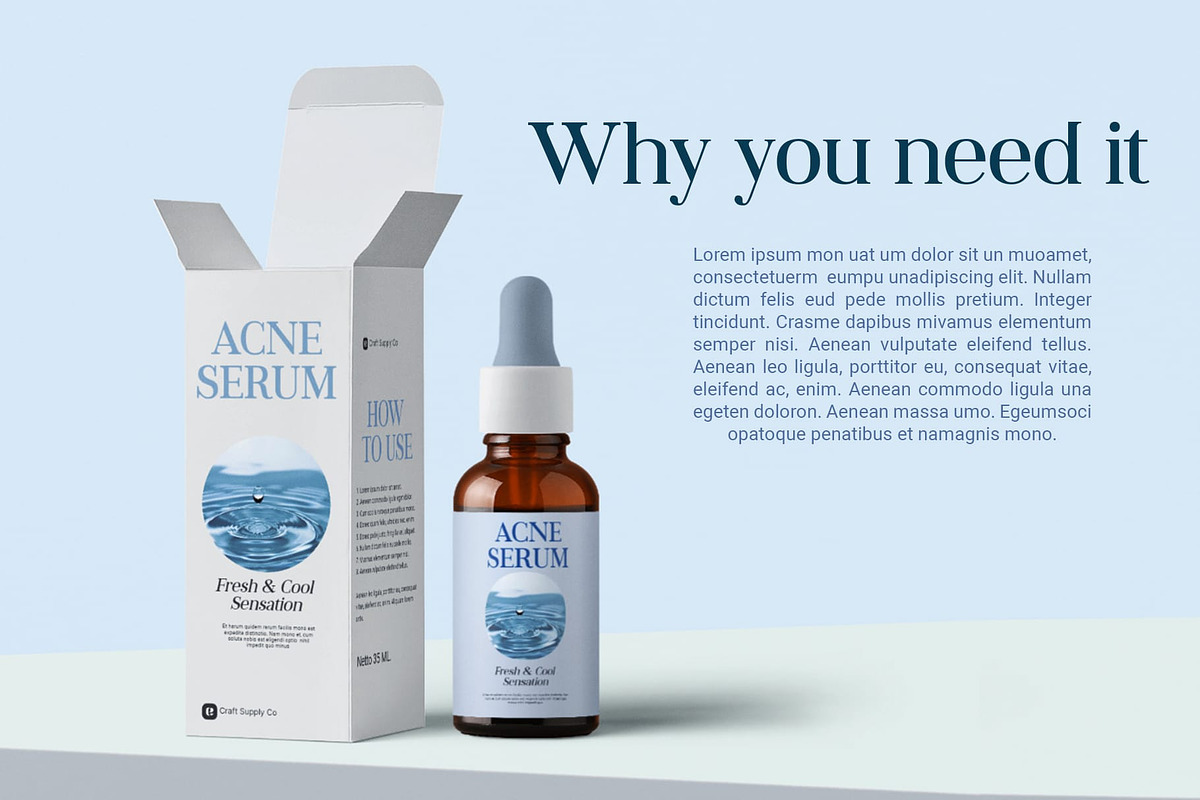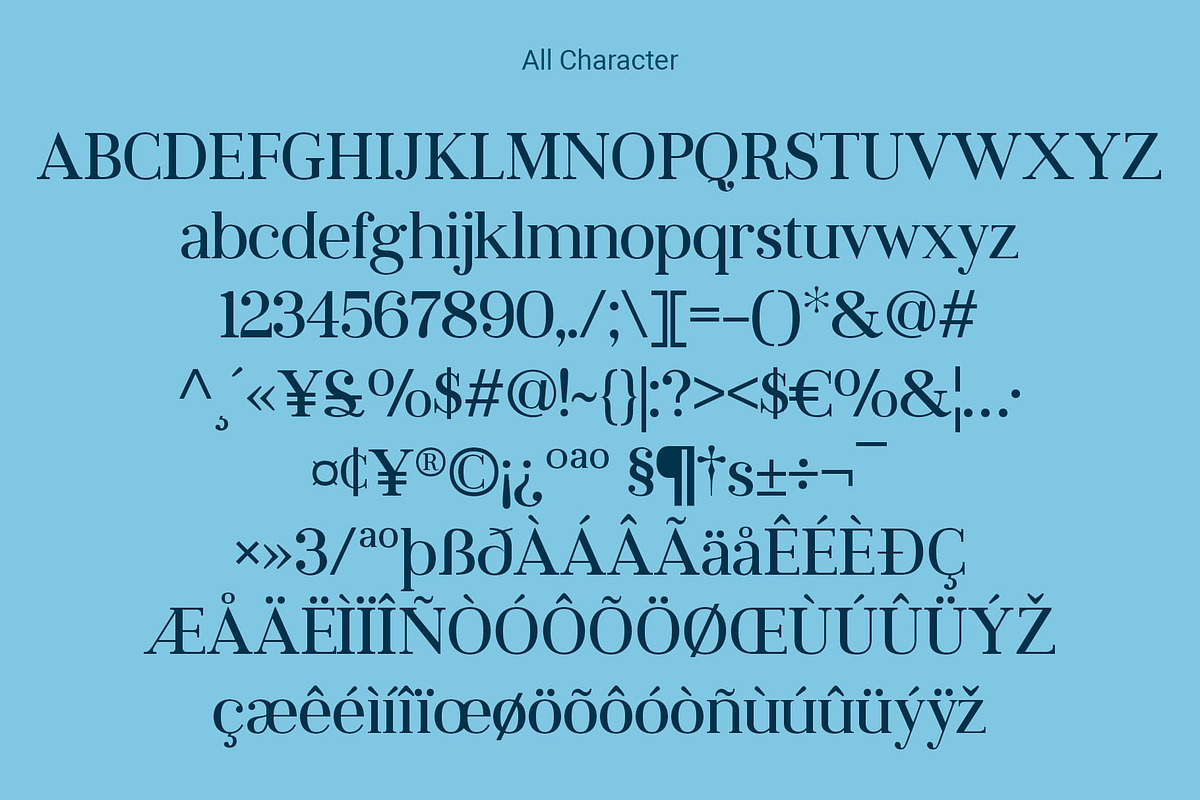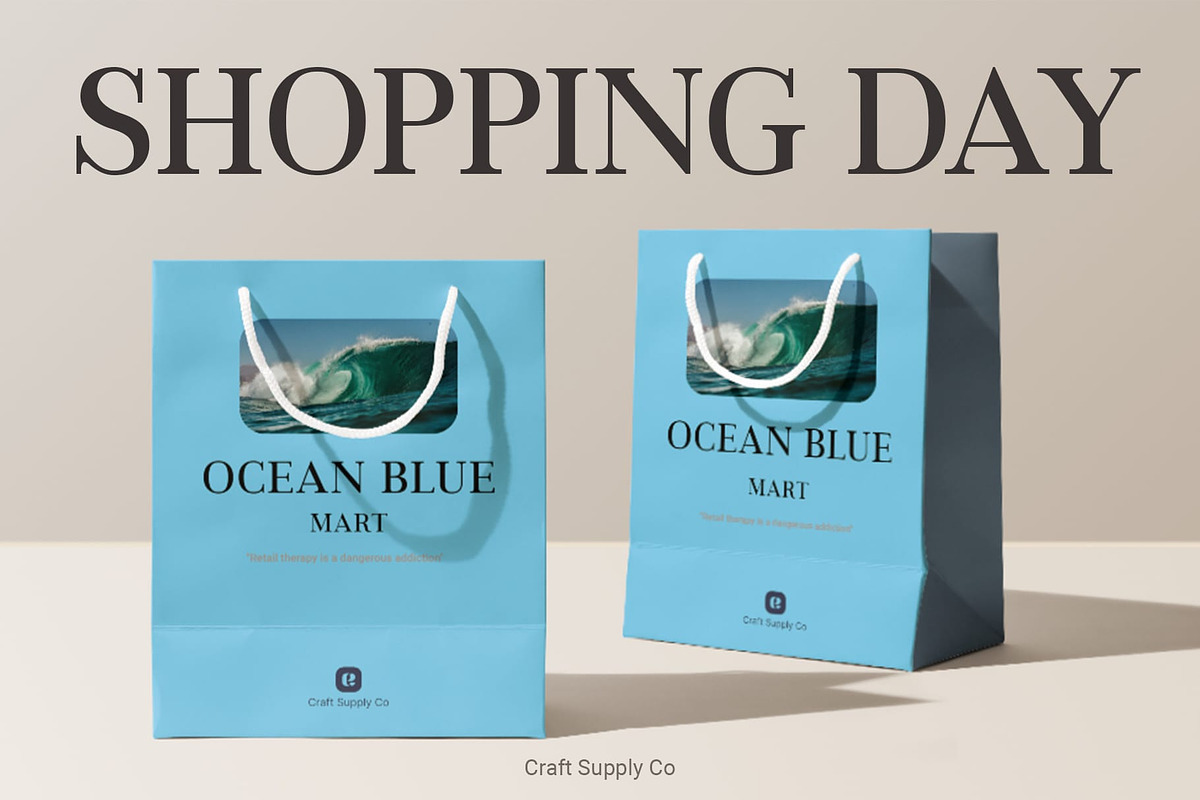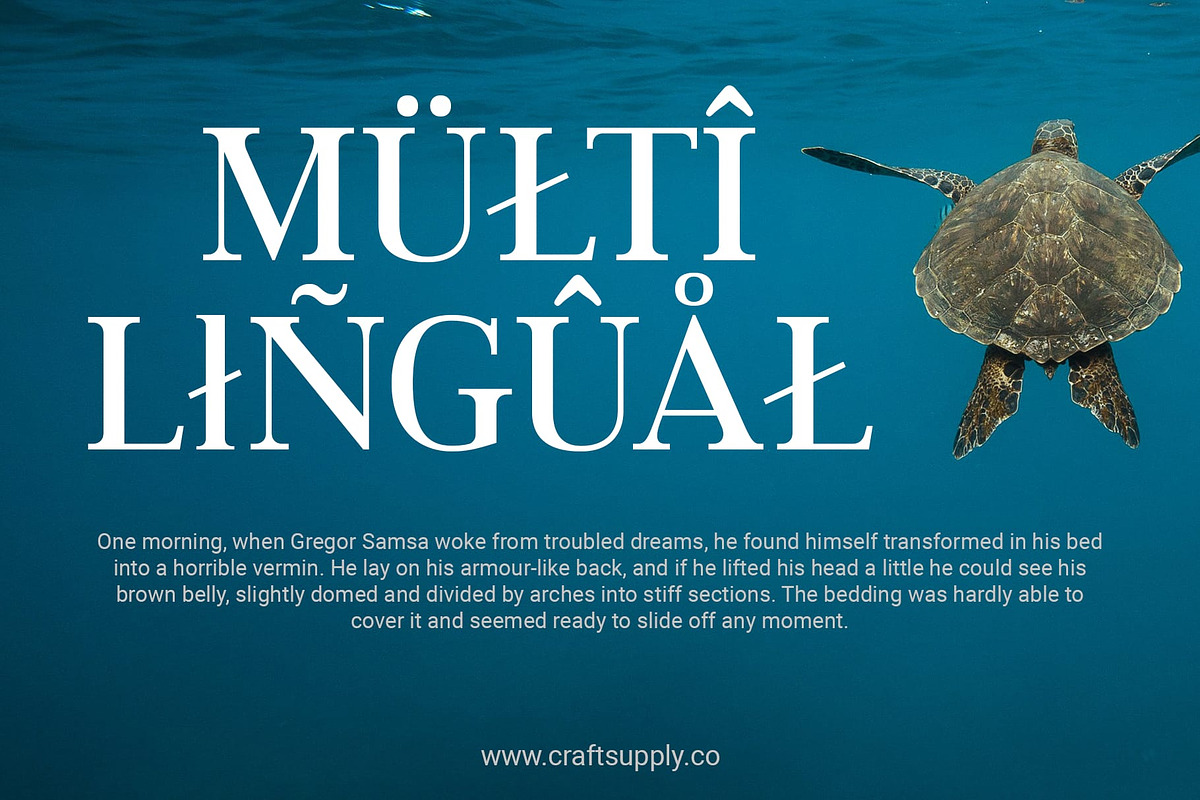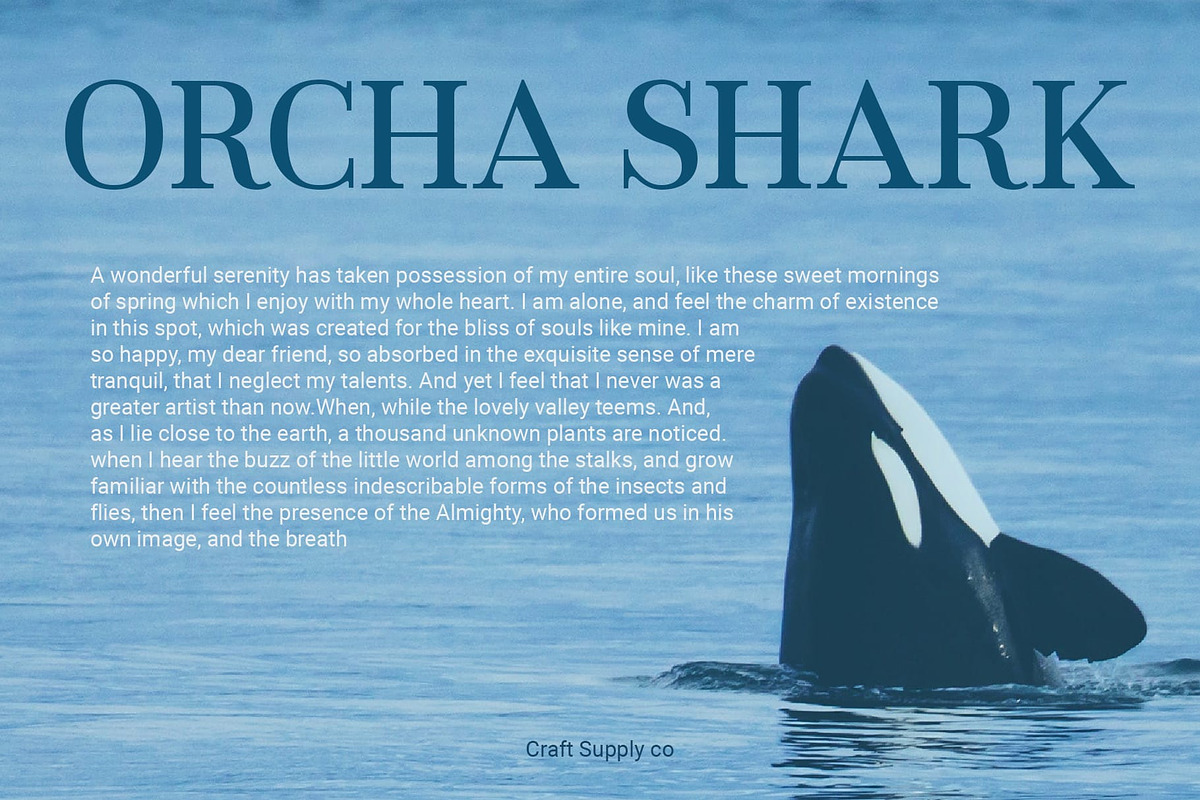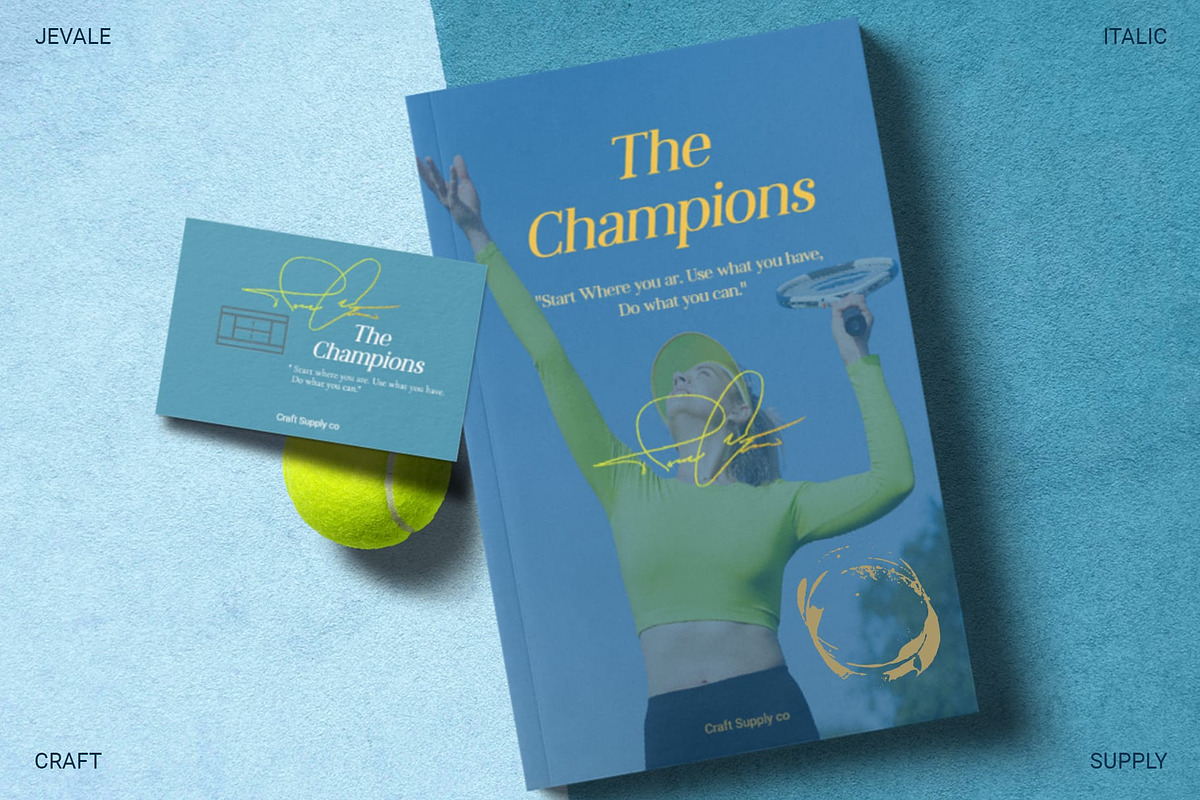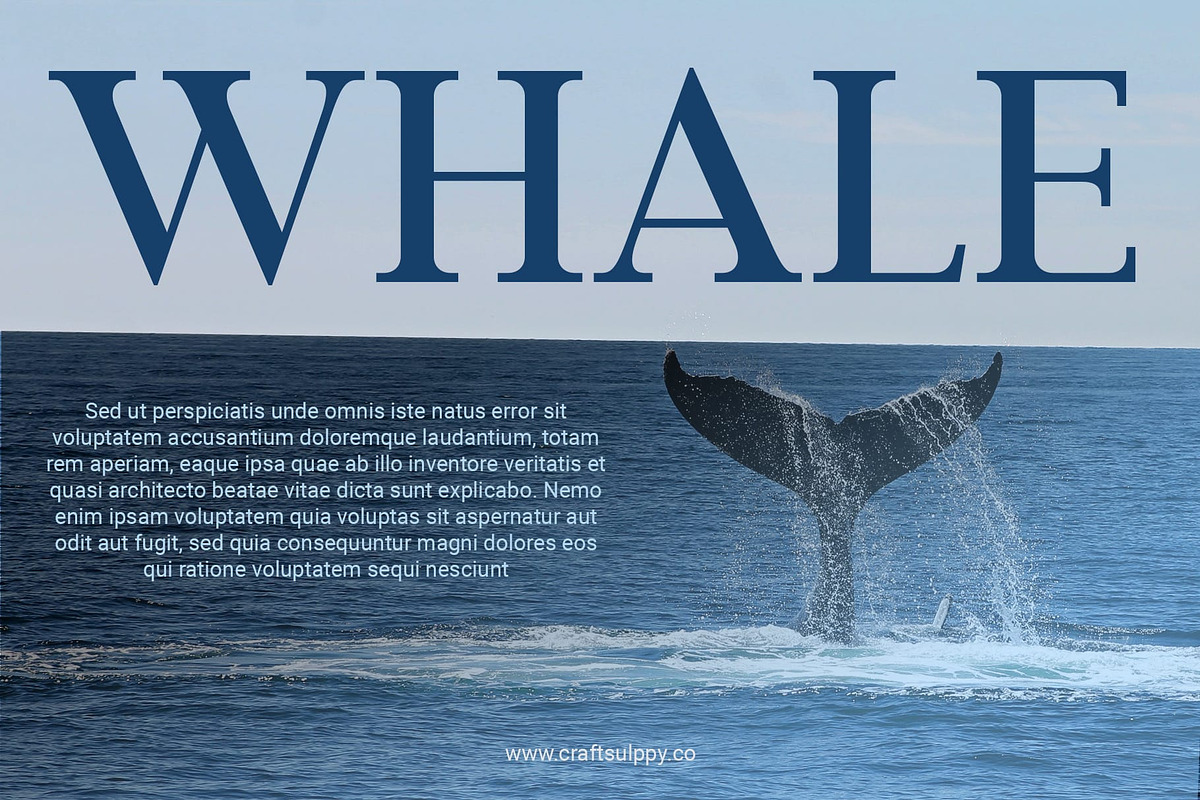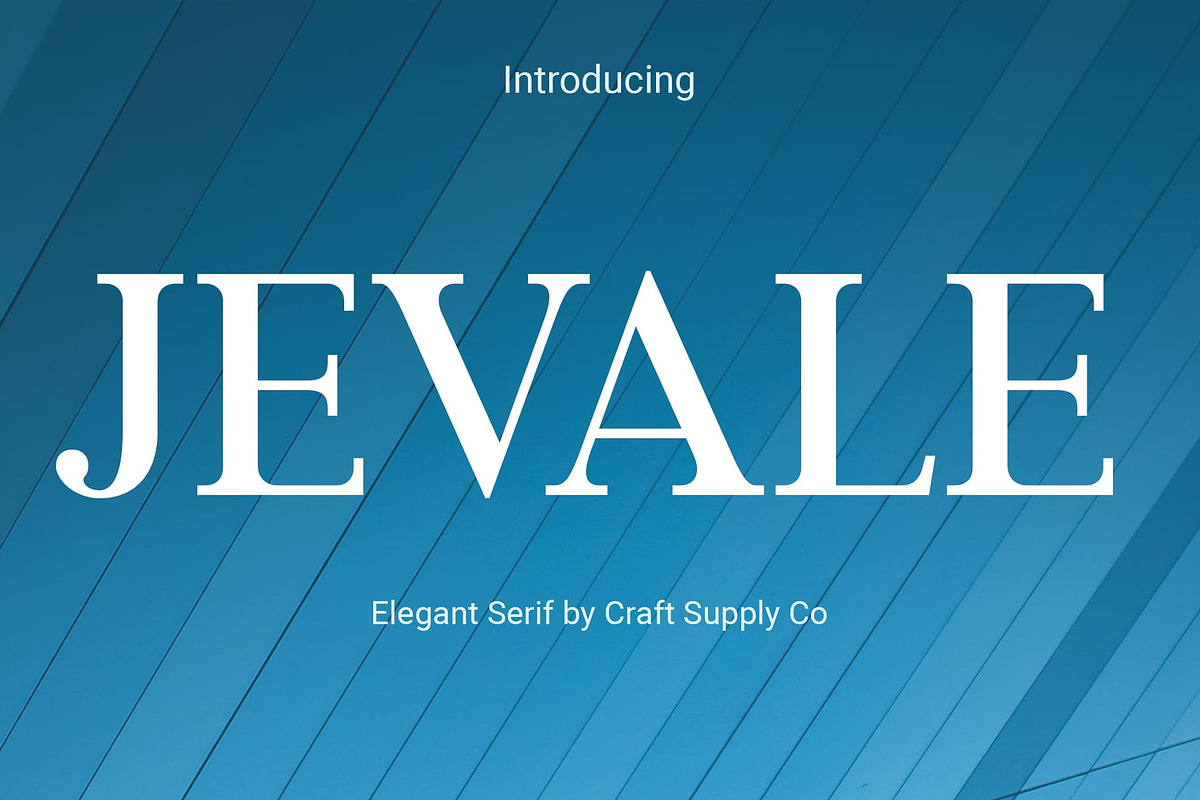
Jevale – Classic Serif
Introducing Jevale – Timeless Serif Typography
Classic Elegance for Every Purpose Jevale exudes timeless charm with its classic serif design, suitable for both body text and titles. Its versatility ensures seamless integration into various design projects.
Versatile Usage for All Text Needs Whether it’s conveying important information in body paragraphs or making a bold statement in titles, Jevale adapts effortlessly to diverse text requirements.
Enhancing Readability and Aesthetics Jevale’s refined serif glyphs not only enhance readability but also add a touch of sophistication to any text composition. Its classic appeal captivates readers and elevates the overall aesthetic of your design.
Ideal for Both Digital and Print From digital platforms to print media, Jevale performs admirably across all mediums. Its timeless serif style lends a sense of authority and professionalism to any content, ensuring maximum impact.
Classic Serif for Modern Design Jevale emerges as a quintessential choice for those seeking classic serif typography for contemporary design projects. With its versatility, readability, and timeless elegance, Jevale stands as a reliable companion for both body text and titles, enhancing the visual appeal of any project with effortless grace.
- Jevale Regular
- Jevale Italic